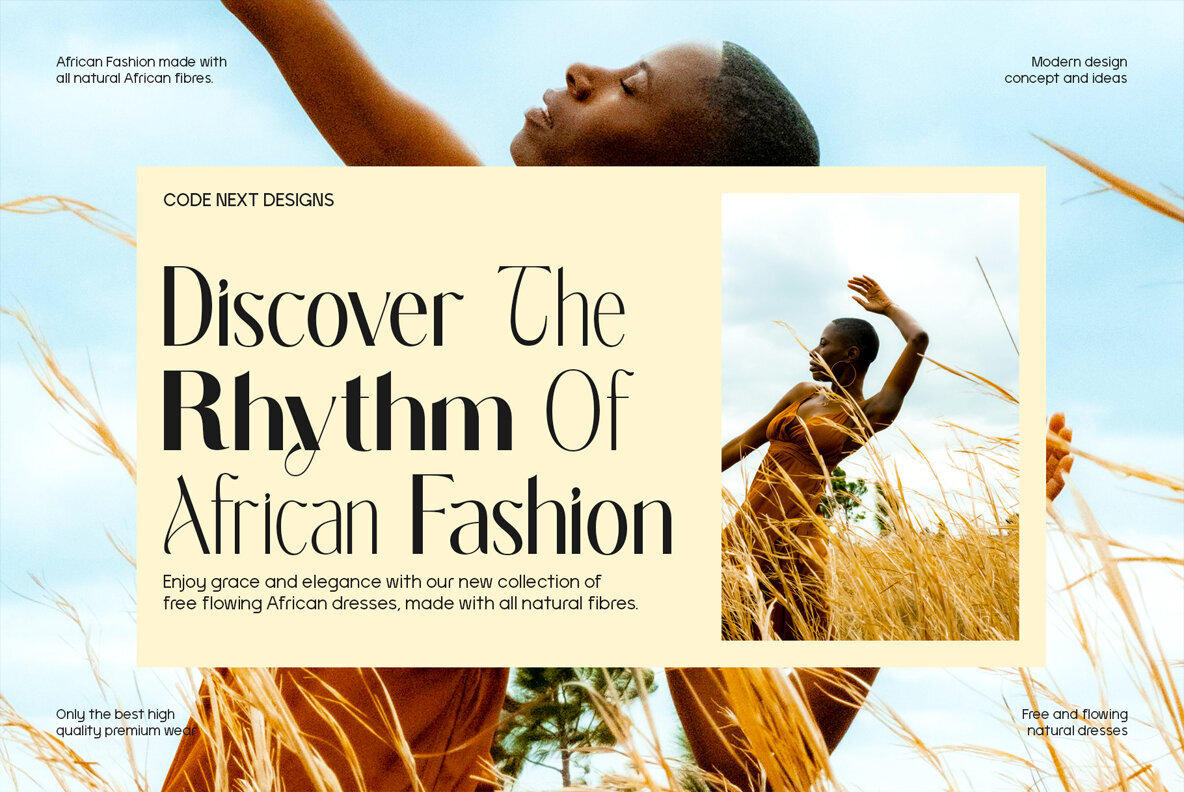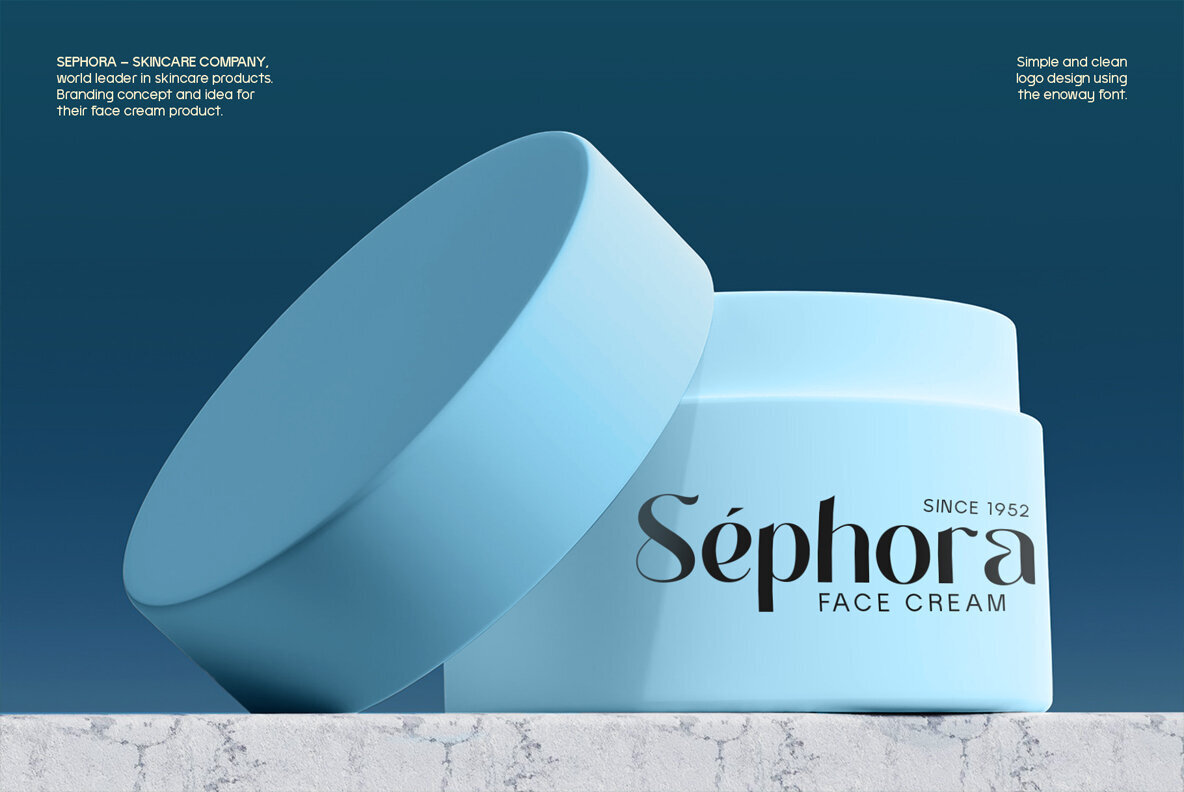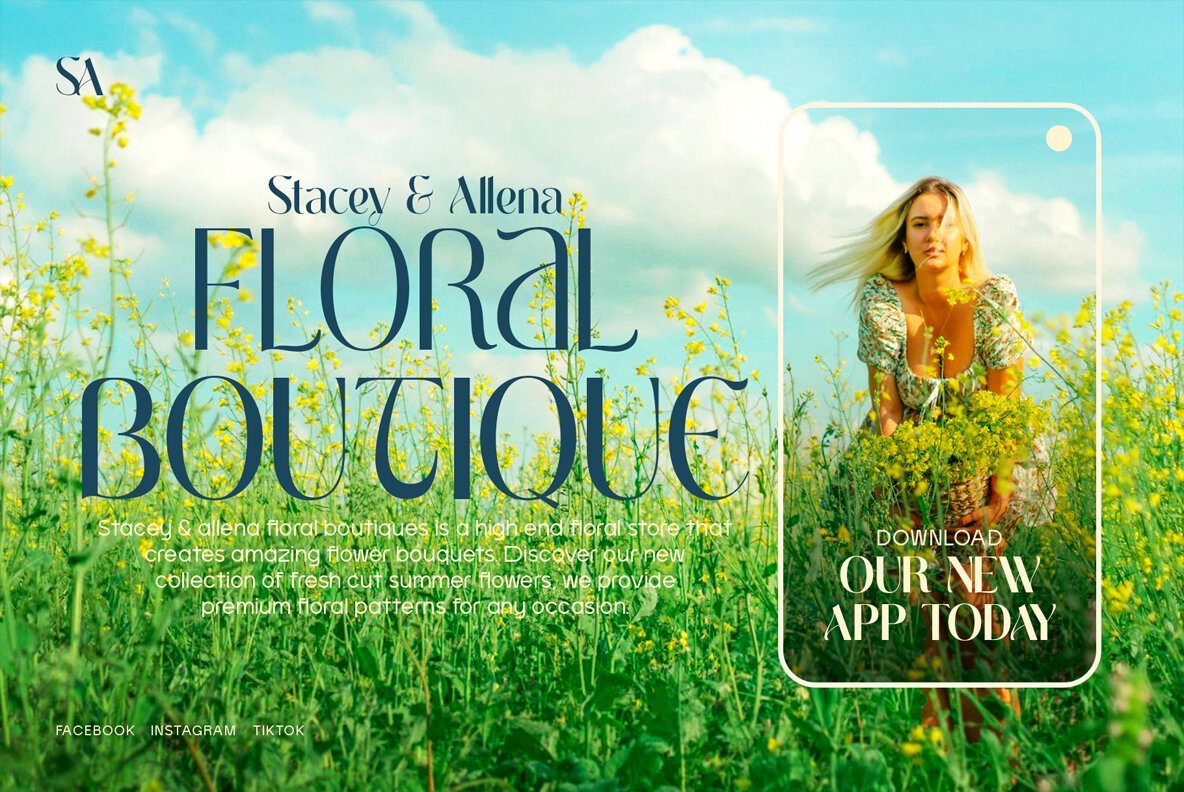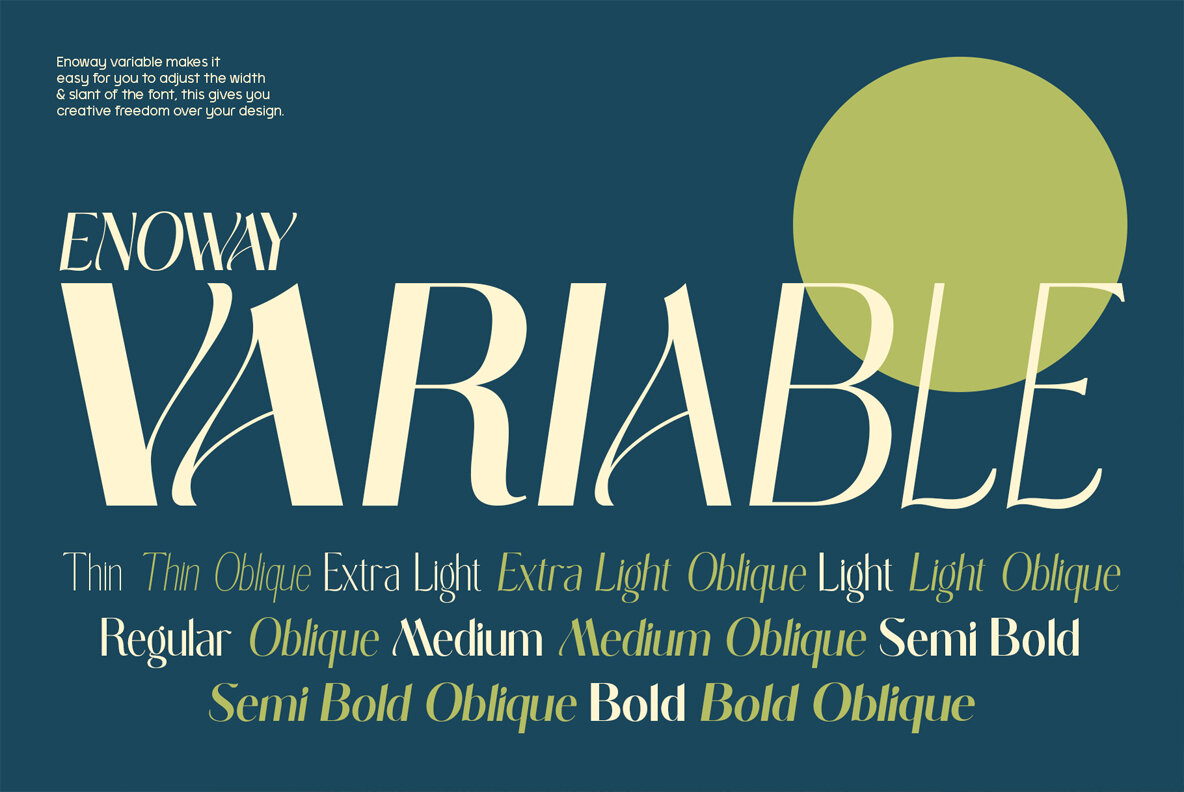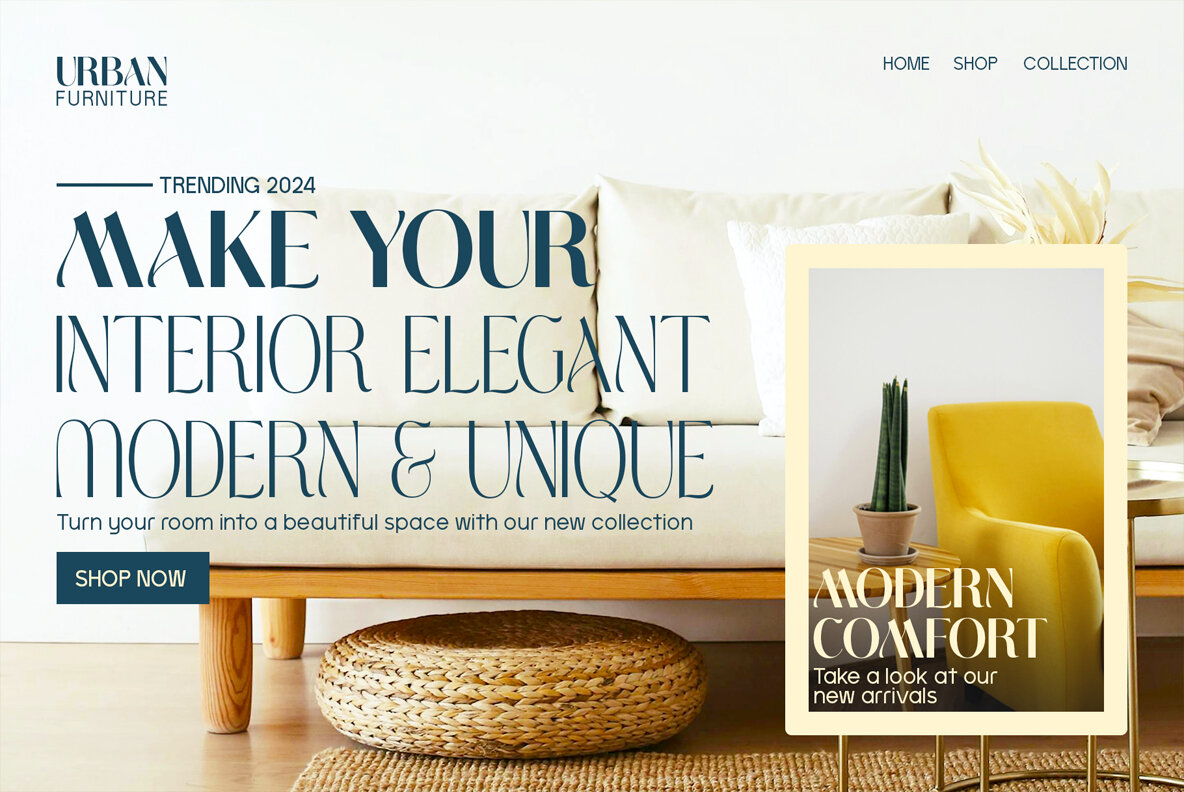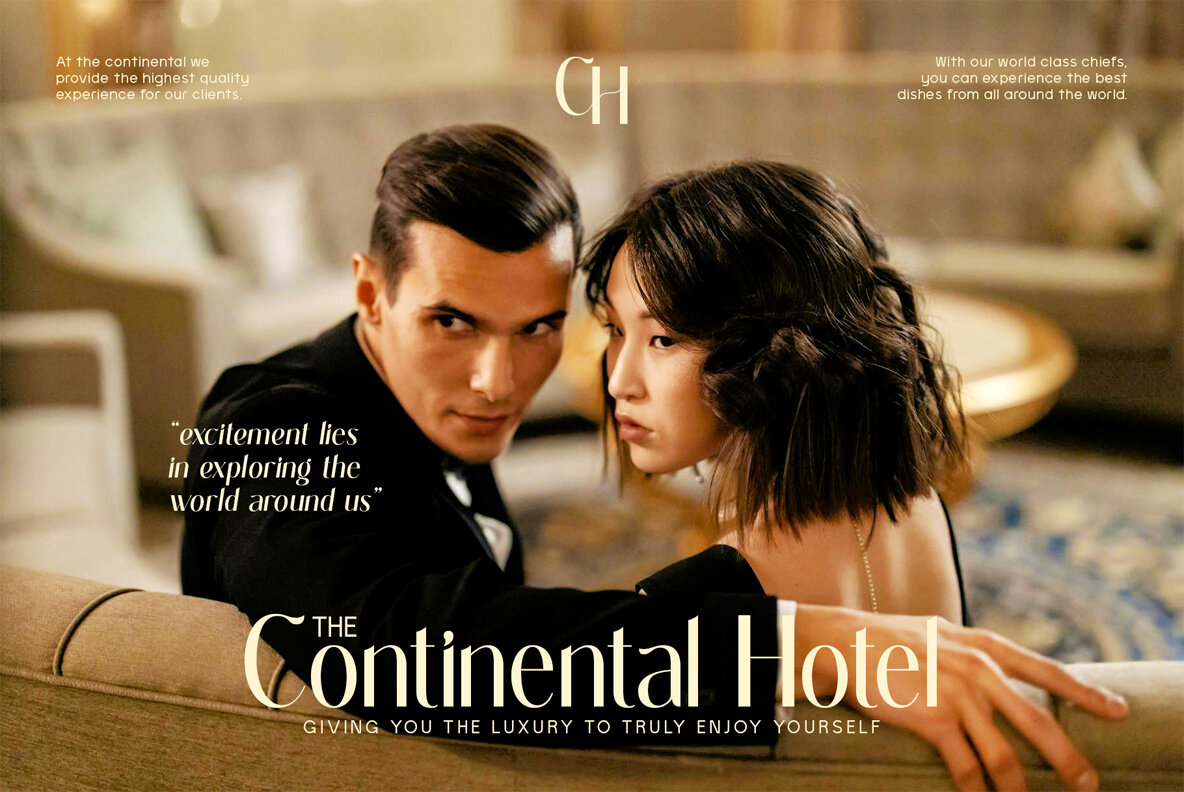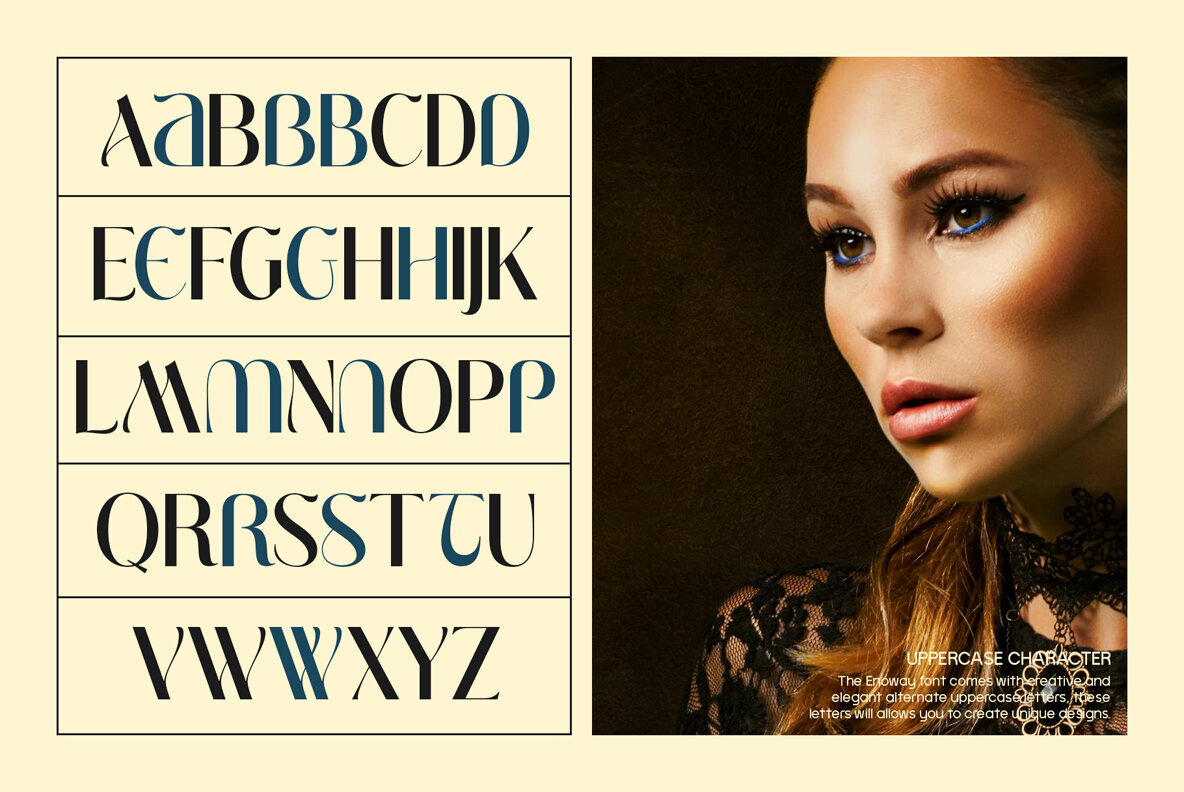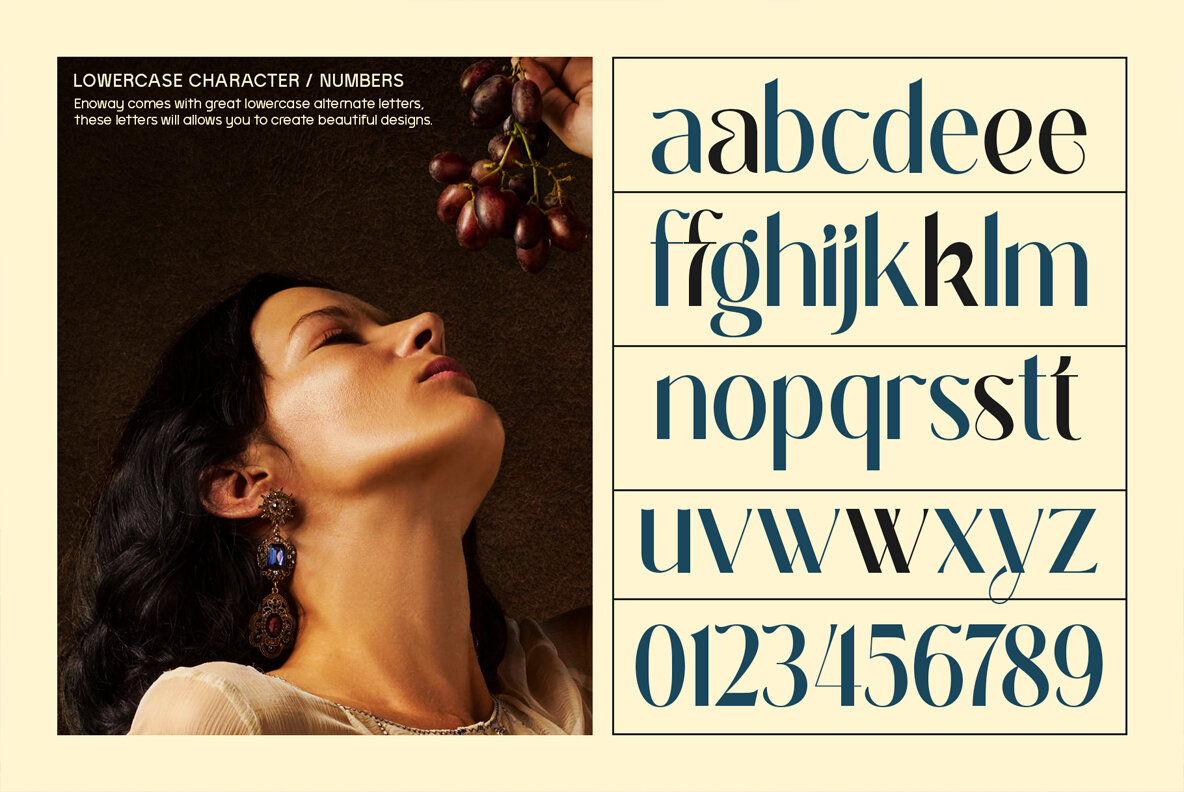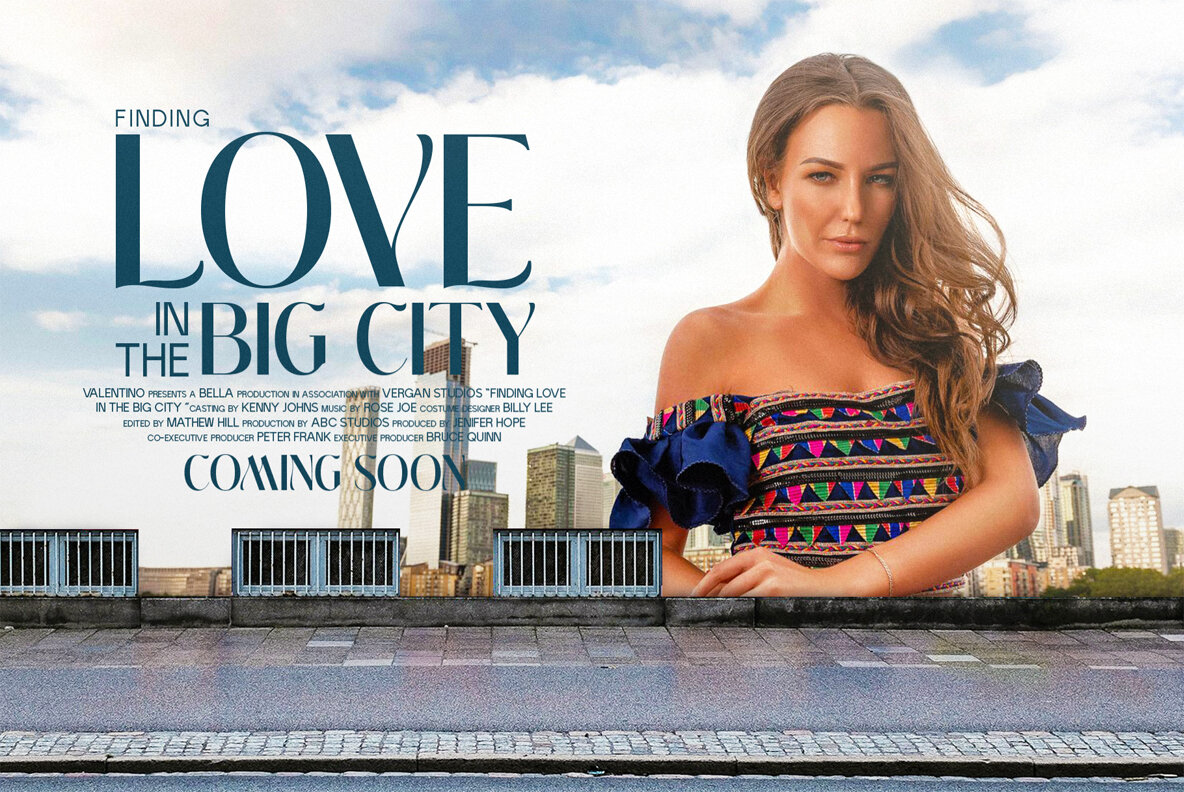
Enoway Pro Font
Enoway Pro is a sophisticated font family embodying the elegance of Art Deco and Art Nouveau styles. Known for its decorative designs and embellished stroke endings, this typeface is perfect for creating stunning graphic designs. Designers and agencies will appreciate its versatility and aesthetic appeal. Available in seven weights, each with an oblique version, Enoway Pro offers ample choices for creating diverse and compelling visuals.
The variable version of Enoway Pro provides flexibility, allowing you to adjust the font's weight and slant manually. Equipped with robust OpenType features, you can effortlessly switch between alternate letters. Its extensive multilingual support, including extended Latin characters, ensures that Enoway Pro caters to a wide range of languages, making it an invaluable asset for any designer's toolkit.